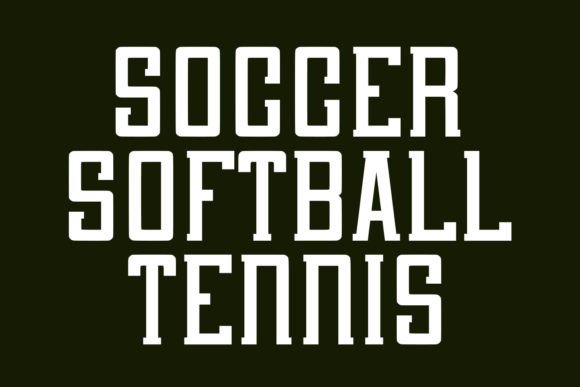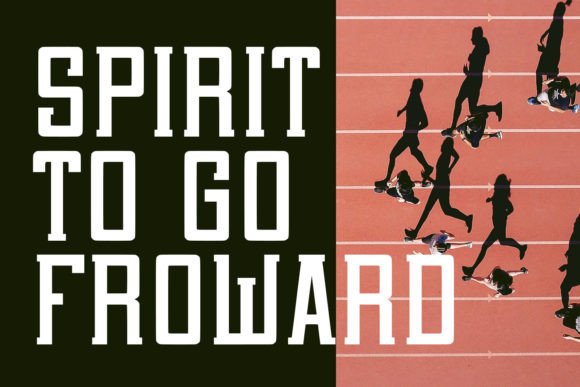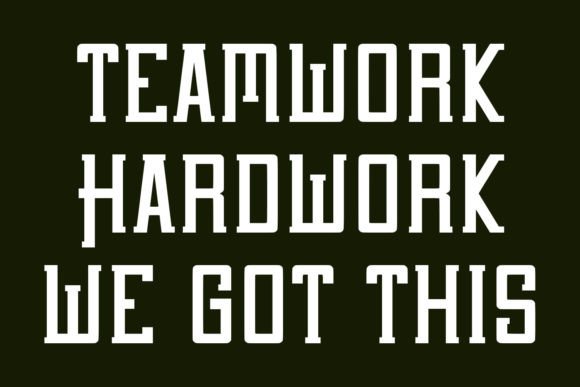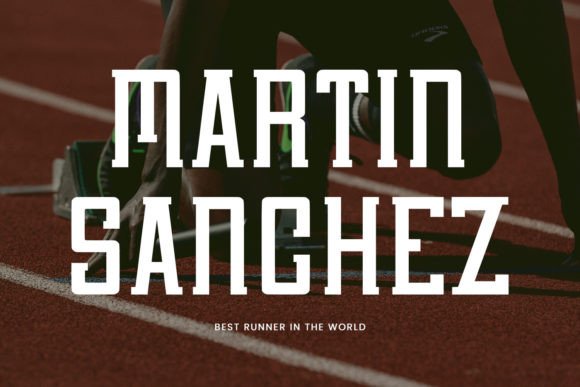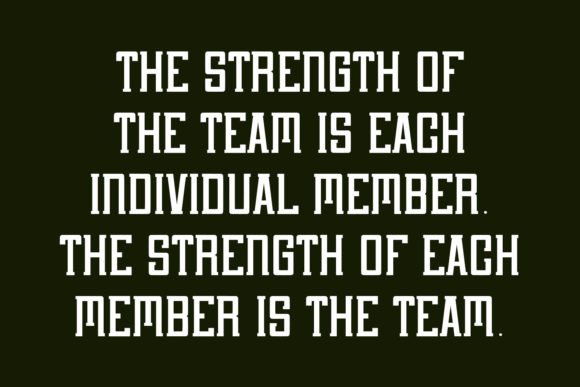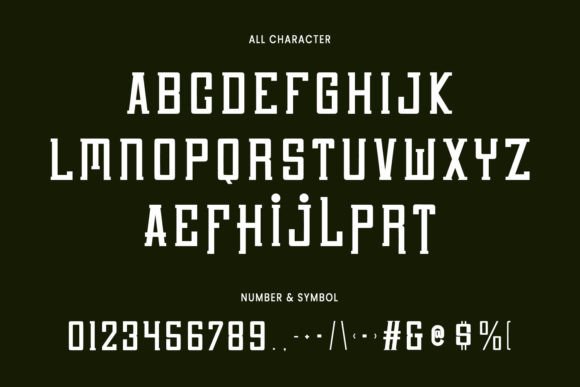
Corner Field Font: A Bold and Modern Slab Serif Display Font
Are you looking for a font that can add a touch of modernity and boldness to your designs? Look no further than the Corner Field Font, specifically the Corner Field Slab Serif Display Font. This type of font is designed to stand out and be easy to read, making it perfect for headlines, posters, and signs.
What is Corner Field Slab Serif Display Font?
Corner Field Slab Serif Display Font is a type of font with thick, bold letters that have small lines at the ends of the strokes. This font is characterized by its sturdy and square-shaped letters, which give a strong and modern look to any text. The slab serif design adds a touch of sophistication and elegance, making it suitable for a wide range of design applications.
Key Features of Corner Field Font
The Corner Field Font has several key features that make it a popular choice among designers and crafters. Some of its notable features include:
- Bold and Thick Letters: The Corner Field Font features thick, bold letters that are designed to stand out and grab attention.
- Slab Serif Design: The font has a slab serif design, which adds a touch of sophistication and elegance to any text.
- Square-Shaped Letters: The letters in the Corner Field Font are sturdy and square-shaped, giving a strong and modern look to any text.
- Easy to Read: The font is designed to be easy to read, making it perfect for headlines, posters, and signs.
Uses of Corner Field Font
The Corner Field Font is a versatile font that can be used in a wide range of design applications. Some of its common uses include:
- Headlines and Titles: The font is perfect for creating bold and eye-catching headlines and titles.
- Posters and Flyers: The Corner Field Font is great for creating posters and flyers that require a bold and attention-grabbing font.
- Signs and Banners: The font is suitable for creating signs and banners that require a clear and easy-to-read font.
- Branding and Logo Design: The Corner Field Font can be used in branding and logo design to create a strong and modern look.
Benefits of Using Corner Field Font
There are several benefits to using the Corner Field Font in your designs. Some of its benefits include:
- Increased Readability: The font is designed to be easy to read, making it perfect for designs that require a clear and concise message.
- Improved Aesthetics: The Corner Field Font has a modern and sleek design that can add a touch of sophistication to any text.
- Versatility: The font is versatile and can be used in a wide range of design applications.
- Attention-Grabbing: The bold and thick letters in the Corner Field Font are designed to grab attention and stand out.
Tips for Using Corner Field Font
Here are some tips for using the Corner Field Font in your designs:
- Use it for Headlines: The Corner Field Font is perfect for creating bold and eye-catching headlines.
- Pair it with a Sans-Serif Font: Pairing the Corner Field Font with a sans-serif font can create a nice contrast and add visual interest to your design.
- Use it in Large Sizes: The Corner Field Font is designed to be used in large sizes, so use it for headlines and titles that require a bold and attention-grabbing font.
- Experiment with Colors: The Corner Field Font can be used in a variety of colors, so experiment with different colors to find the one that works best for your design.
In conclusion, the Corner Field Font is a bold and modern slab serif display font that is perfect for designers and crafters looking to add a touch of sophistication and elegance to their designs. With its thick, bold letters and slab serif design, this font is sure to grab attention and stand out. Whether you’re creating headlines, posters, signs, or logos, the Corner Field Font is a great choice.